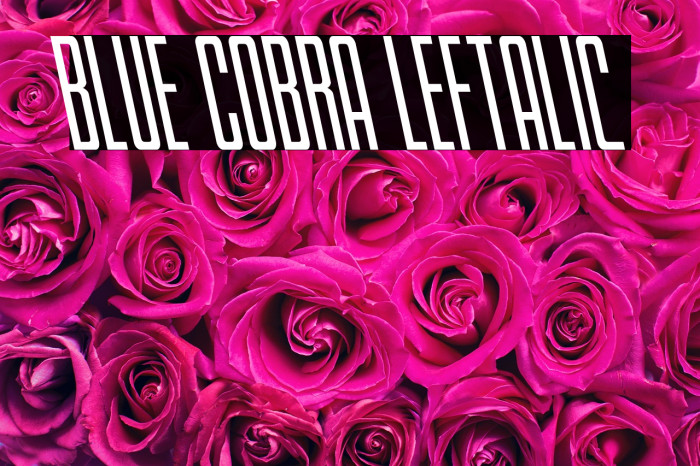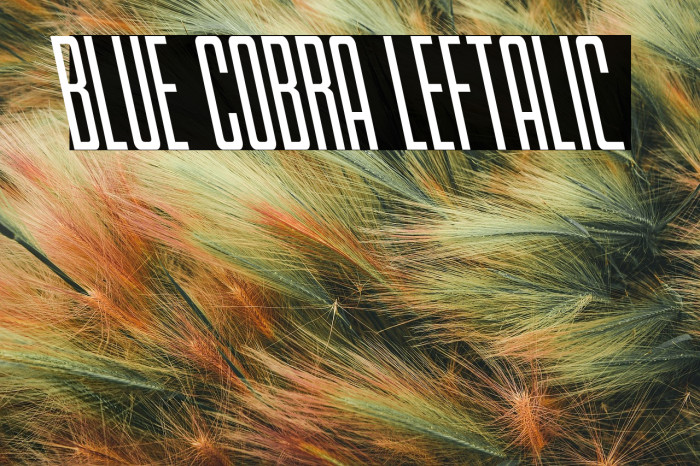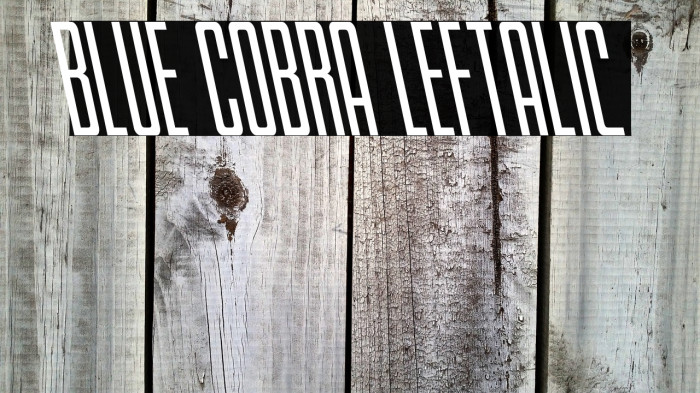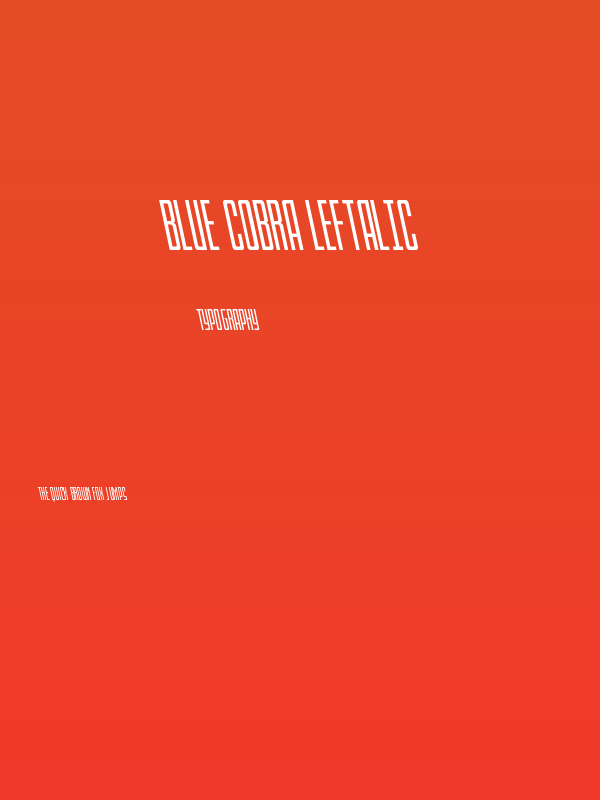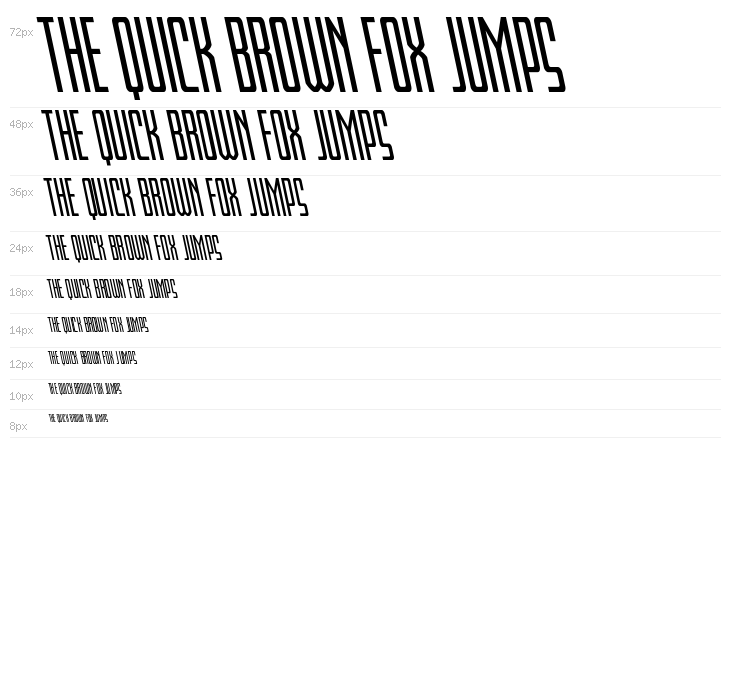
Blue Cobra Leftalic Font
Blue Cobra Leftalic Description
This font features a distinctive, angular design with a strong leftward slant, giving it a dynamic and energetic appearance. The characters are elongated and narrow, with consistent stroke thickness that conveys a sense of speed and modernity. The uppercase and lowercase letters maintain a uniform style, enhancing readability while preserving the unique aesthetic. The numerals and special characters are crafted to match the overall design, ensuring a cohesive look across all text. This font's bold and striking appearance makes it ideal for projects that require a contemporary and edgy feel.
| Proposed Projects | Ideal for sports branding, modern posters, dynamic logos, and edgy editorial design. |